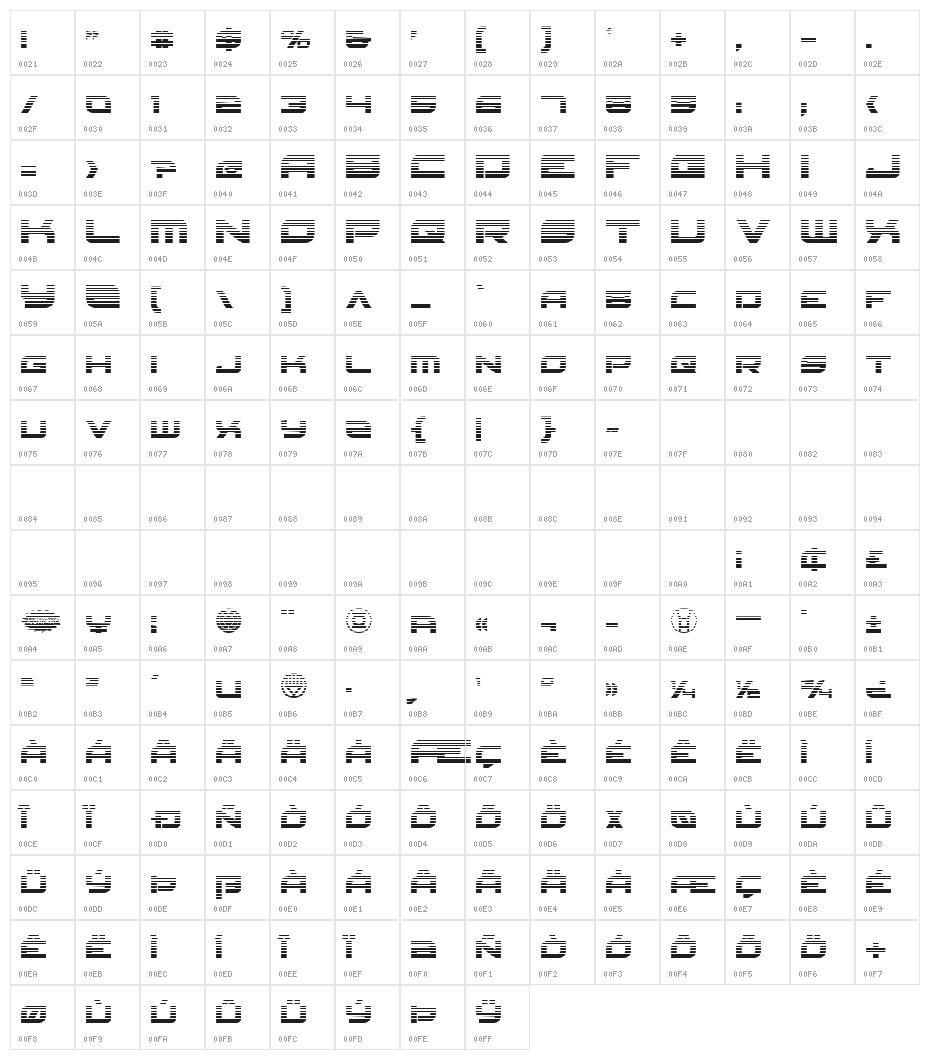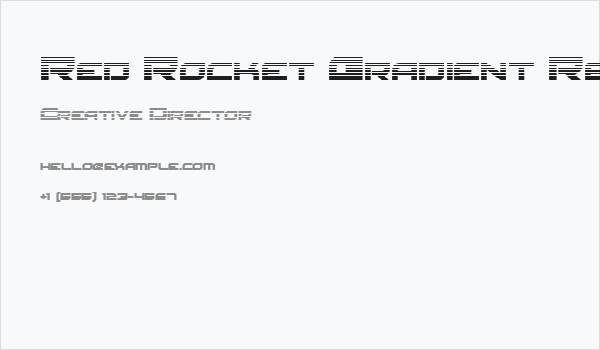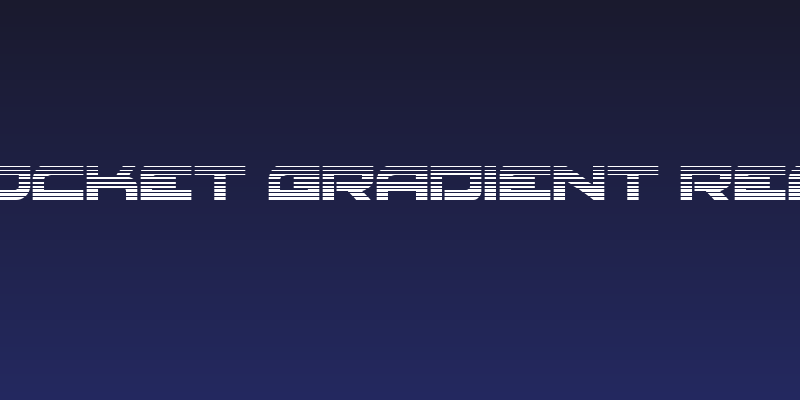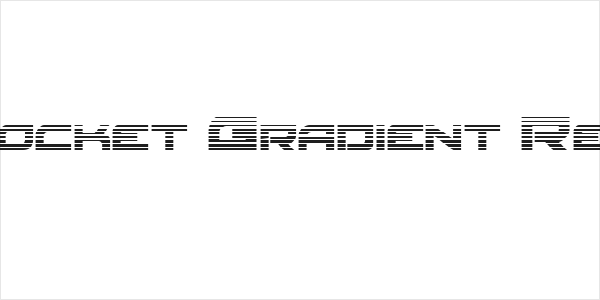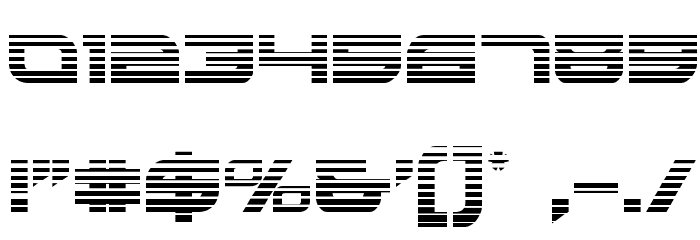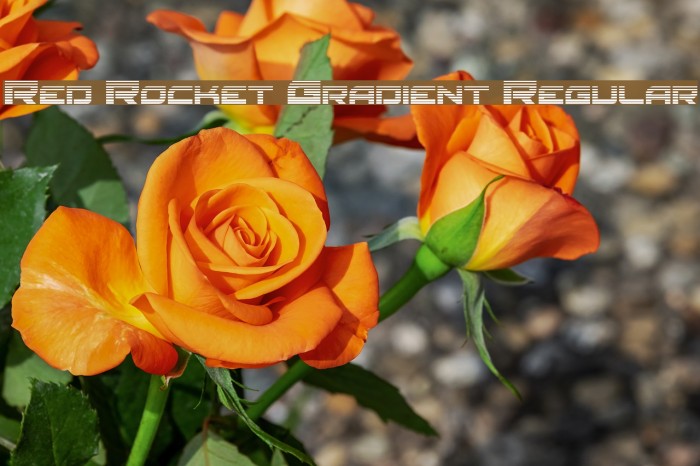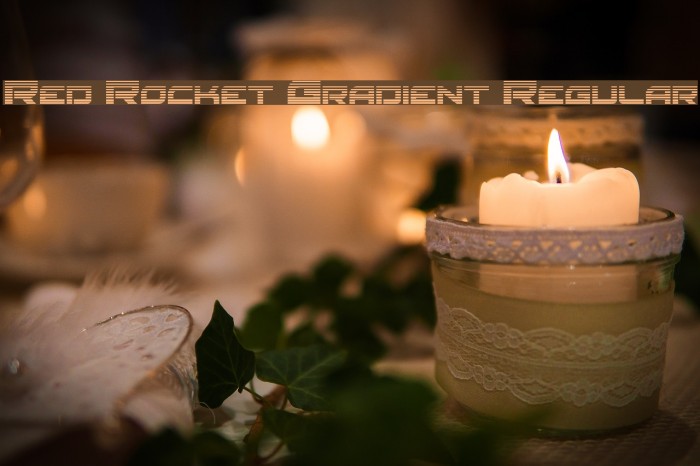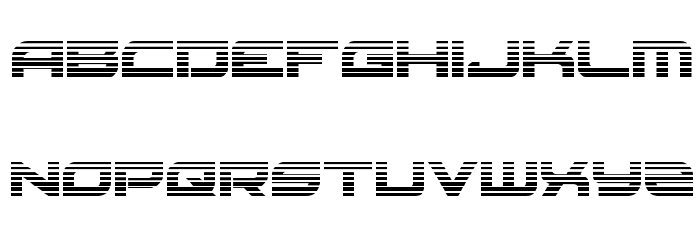
Red Rocket Gradient Regular Font
This font features a futuristic and digital aesthetic, characterized by its horizontal line pattern that creates a gradient effect across each character. The uppercase and lowercase letters, as well as numbers and special characters, maintain a consistent style with clean, geometric shapes. The design is reminiscent of digital displays or sci-fi themes, making it stand out with its unique, modern appeal. The spacing between characters is uniform, contributing to a cohesive and structured appearance. This font is ideal for projects that require a bold, tech-inspired look.
| Proposed Projects | Ideal for tech-themed designs, sci-fi posters, digital interfaces, and modern branding. |